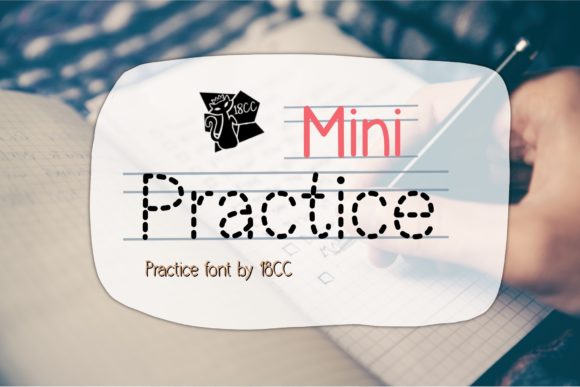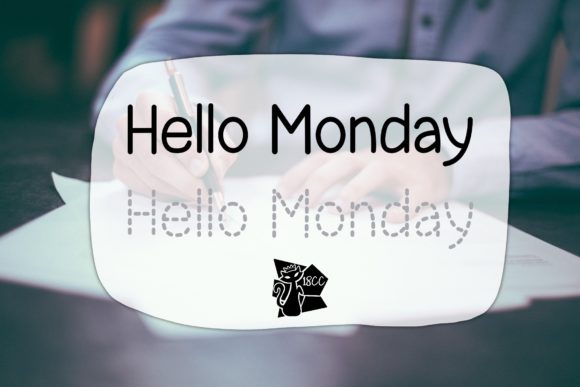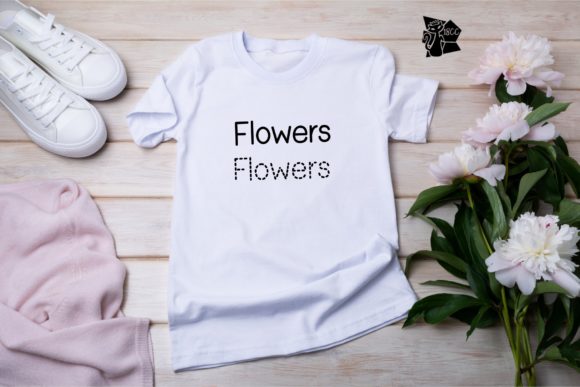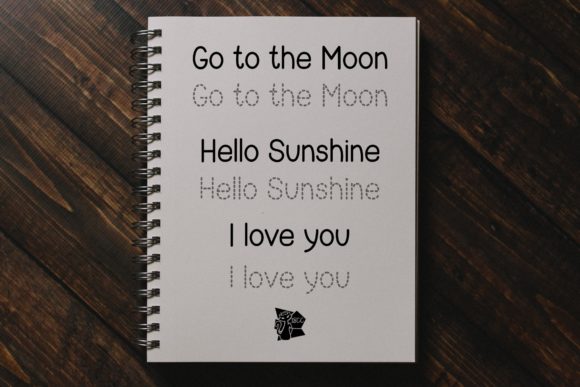
Mini Practice Font
About the Mini Practice Font
From logos to headlines, the Mini Practice Font is the perfect choice for making a lasting impression. Mini Practice is a cute handwritten font monoline and dash for practice. Clean and a cute for crafty DIY projects, and much more! This font is suitable for various products such as invitations, product packaging, quotes, product design, crafter, labels, photography, watermarks, logos & branding.
Mini Practice’s playful, slightly quirky personality makes it ideal for projects needing a touch of handmade charm. It excels in headlines, short text blocks on packaging, and social media graphics. Use it for branding aimed at a younger demographic or businesses with a craft-focused aesthetic. Avoid using it for body text or longform content; its handwritten nature can hinder readability in larger blocks.
Pairing Mini Practice with a clean sans-serif like Open Sans for body text creates a strong contrast, balancing its casual handwritten style. For a more sophisticated feel, consider pairing it with a delicate serif like Lora. Alternatively, a geometric sans-serif like Montserrat could add a modern edge.
The font’s overall mood is approachable and friendly, making it unsuitable for projects requiring a high degree of formality or seriousness.
Mini Practice Font Usage Examples
Mini Practice Font Example